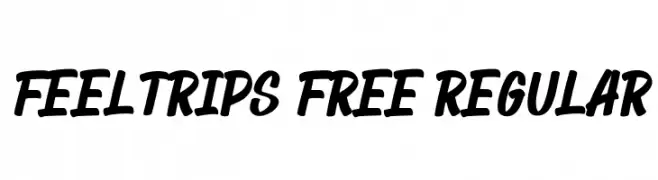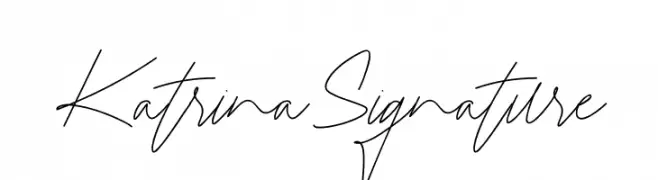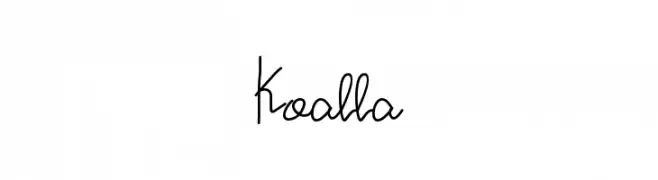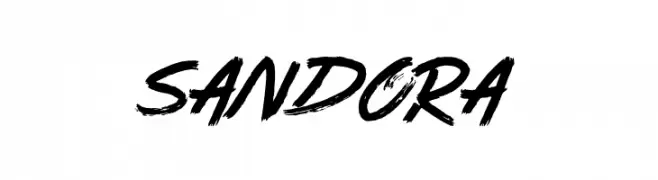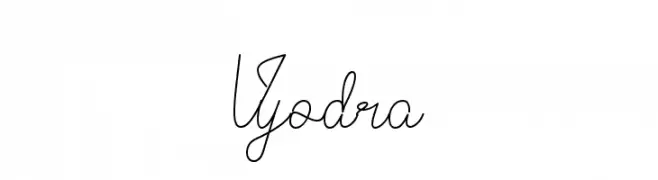
A bold, handwritten font with a playful and energetic style.
A bold, playful handwritten font with unique curls and loops.
An elegant and flowing script font with graceful curves and refined flourishes.
An elegant, flowing script font with smooth, continuous strokes.
An elegant and flowing script font with intricate loops and swirls.
A whimsical and elegant script font with flowing, interconnected letters and playful loops.
A playful, handwritten font with fluid and organic letterforms.
A playful and elegant script font with smooth, flowing cursive letters.
A bold, dynamic brush script font with expressive strokes.
A fluid, cursive font with a personal, handwritten style.